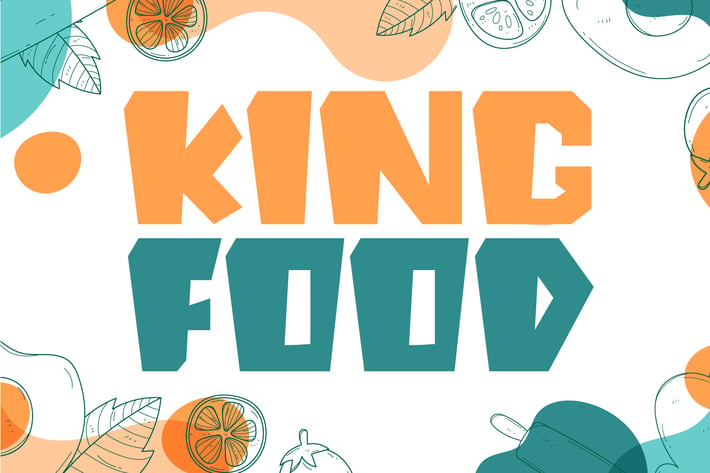
King Food - Display Font
Introducing King Food - Display Font
King Food is a cute and quirky display font. It embodies playfulness and authenticity and is the perfect choice for any children activity or school project.